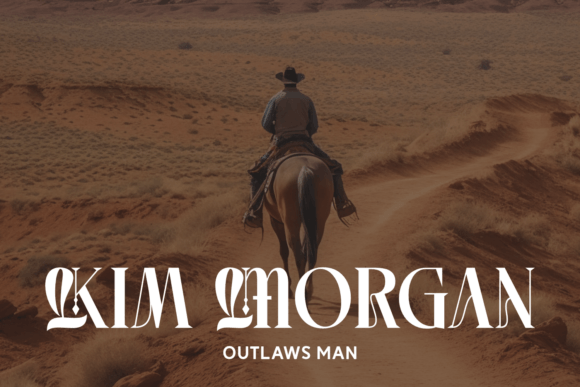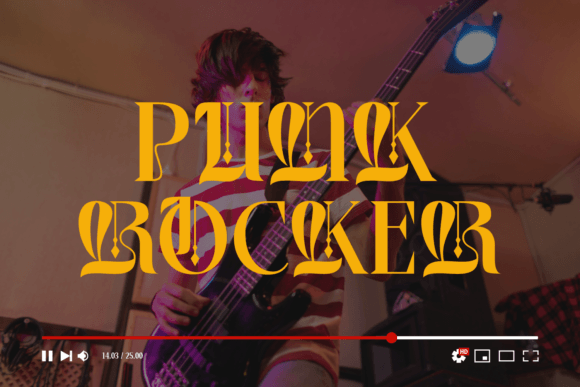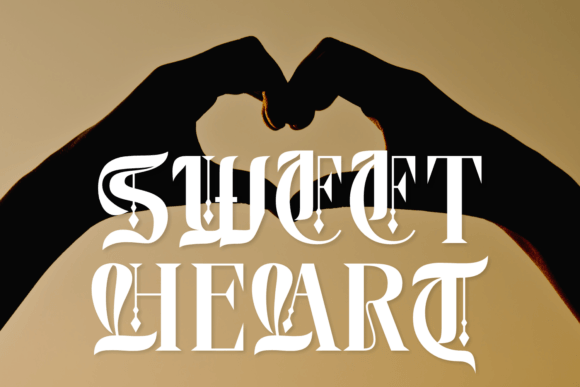
Introduction to Magic Rose Font
Magic Rose is a captivating blackletter font blending gothic elegance with floral-inspired details.
Its bold, intricate strokes evoke medieval artistry, while subtle ornamental touches add a modern charm Perfect for branding, invitations, or logos, Magic Rose exudes mystery, sophistication, and timeless romantic allure.
Key Features of Magic Rose Font
Why Choose Magic Rose Font?